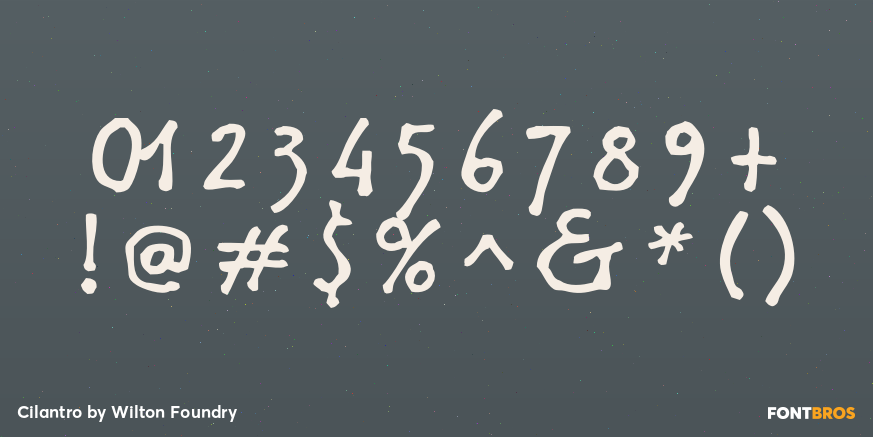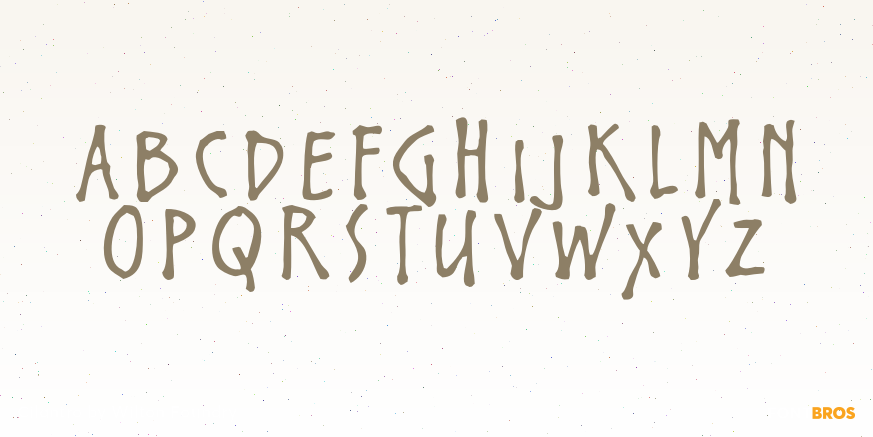
Cilantro
Font Family by Wilton Foundry
Cilantro is a distressed handwritten display font with an easy, informal feel and a visibly weathered texture. The single-style family from Wilton Foundry gives lettering a more human, broken-in look, making it well suited to work that needs character rather than polish.
Its handwritten construction and rough surface make it a strong fit for posters, packaging, casual branding, signage, apparel graphics, and other display settings where you want a handmade impression. With 222 glyphs included in the available style, it offers a focused, expressive option for designers looking for something relaxed, tactile, and slightly gritty.